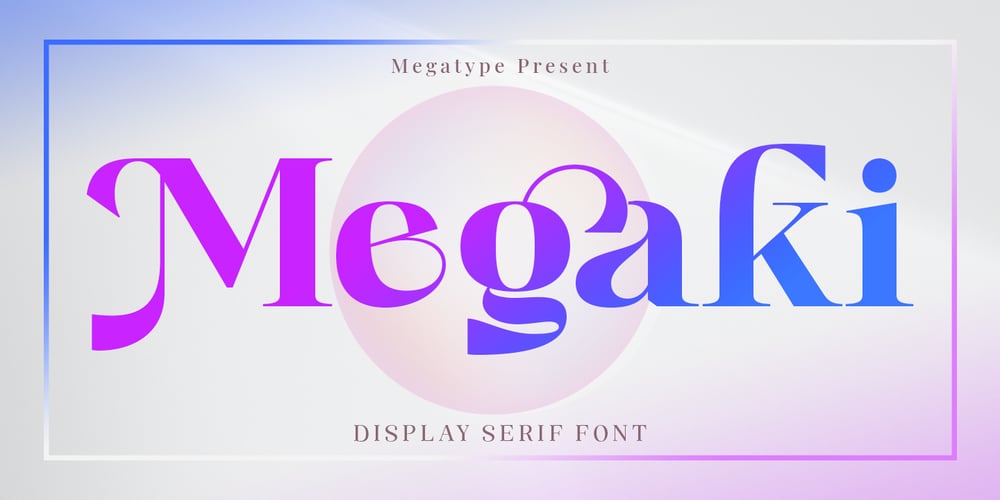
Megaki
Megaki font
Megaki Font Family was designed by M Akmal and published by Mega Type. Megaki contains 1 styles and family package options. Megaki – Serif Display Font.Megaki is a Serif Display Font with a modern, classy, fun, unique and versatile style. Looks great at display size and easy to read at text size. This font also has many unique alternatives and ligatures (500+ glyphs) that will make for amazing design projects.Megaki Serif Display Font works well for branding projects, logos, television shows, movie titles, wedding designs, social media posts, advertising, product packaging, product design, labels, photography, watermarks, invitations, special events or anything else required to create a theme.Megaki is built with OpenType features and includes initial and final language styles, alternative characters for uppercase and lowercase letters, numbers, punctuation, alternatives, endings, and also supports other languages.Have fun using Megaki!!!Hope you enjoy our fonts and if you have any questions, feel free to message & I’ll be happy to help :)Thank you very much for purchasing our fonts!